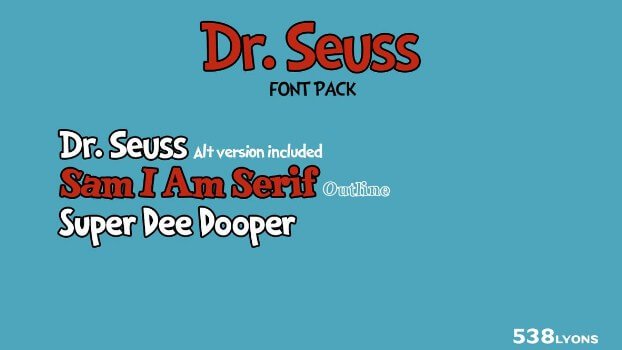
Here we are introducing the Dr Seuss Font. This is the fancy typeface that is available here for free download and the unique and elegant style of this font typeface gives a modern outlook look to the designs.
This typeface is filled with all the additional of a personalized hand-drawn typeface that works well with noir font while maintaining the formal look and add a great appealing look to the design.
This typeface is the best typeface that has been used by most of the prime time designers and it will add the taste of glamour to the design and this typeface is mostly used in magazines.
By nature and stying, this is the promising typeface that with the combination of tahoma font works well for news headlines there are a lot of typefaces available in this genre but this is the best typeface to be used.
Dr Seuss is one of the best sans serif font that is designed and presented by Erik Spiekermann. It's one of the most liked font on the web.
The Gabbaland font is very close to the Dr Seuss font.